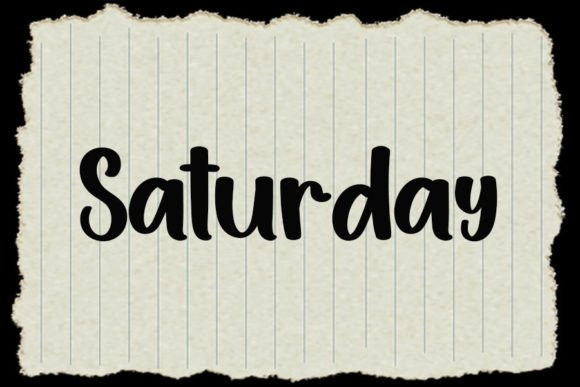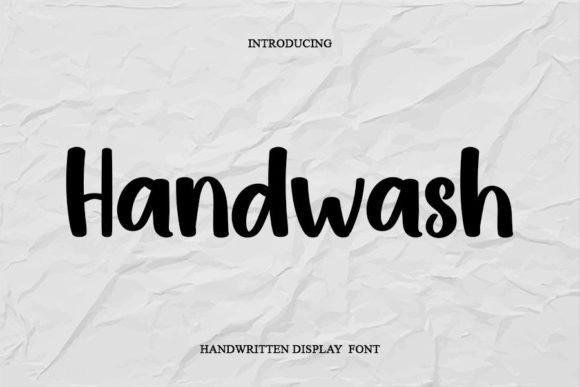
Handwash Font
Handwash Font is a magical handwritten font carefully created with a touch of elegance. Clean and a little bit quirky, this font is the perfect fit for all of your logos, branding, social media, and crafty DIY projects.